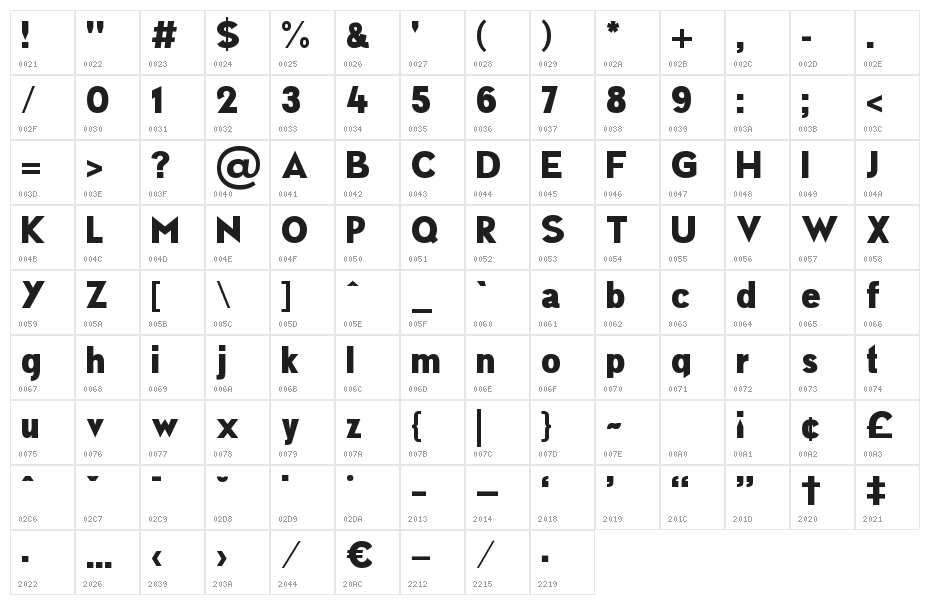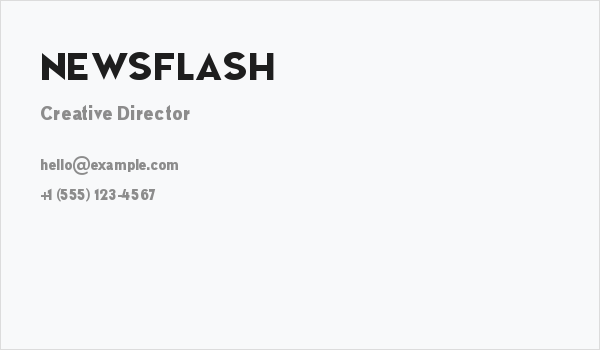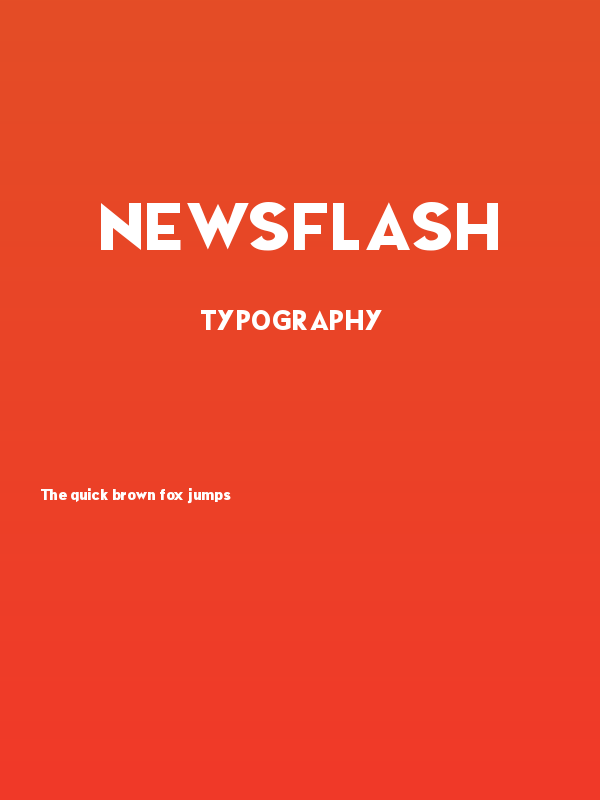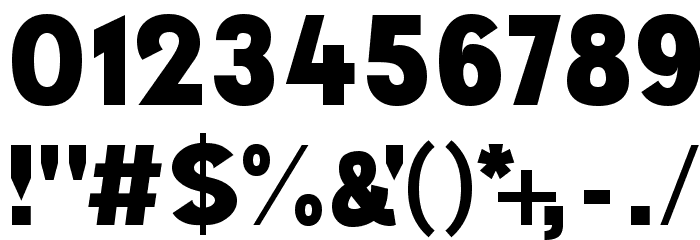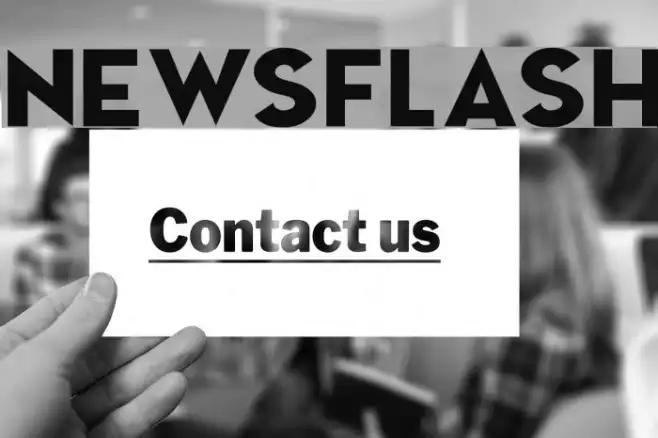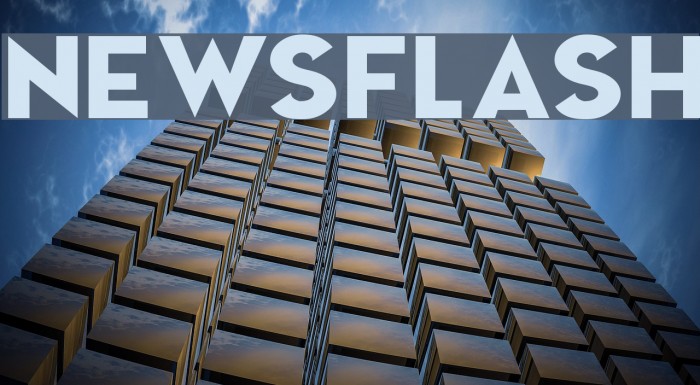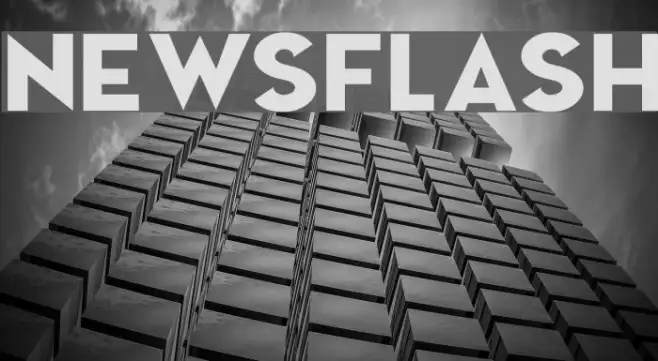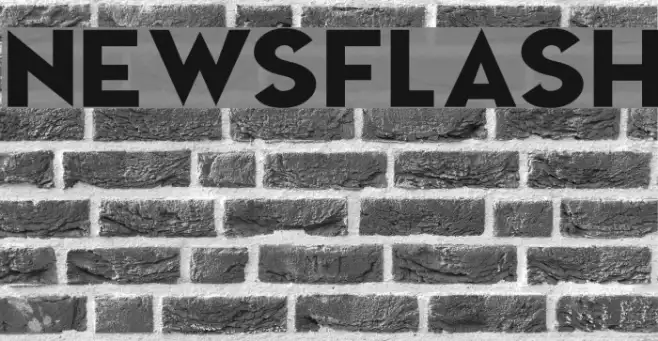
This font features bold, geometric letterforms with a strong presence, making it ideal for attention-grabbing headlines and impactful designs. The uppercase and lowercase letters are well-balanced, with consistent stroke widths that convey a sense of stability and modernity. The numerals are clear and legible, matching the bold style of the alphabet. Special characters are included, maintaining the same robust design. This font is versatile, suitable for both digital and print media, and can be used to create a strong visual hierarchy in various design projects.
| Proposed Projects | Perfect for branding, advertising, posters, and editorial design where a strong visual impact is needed. |